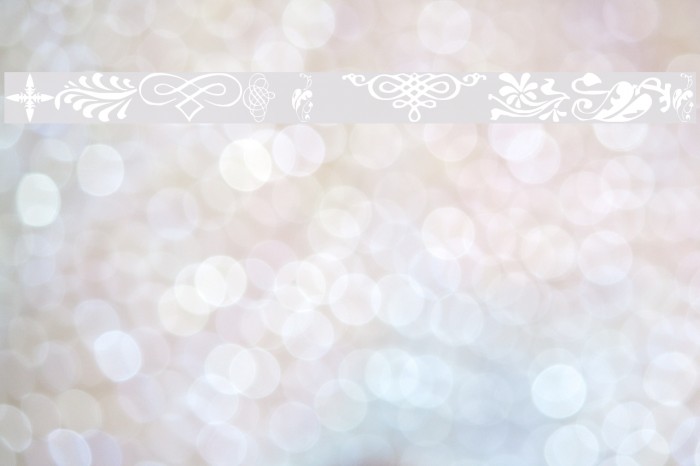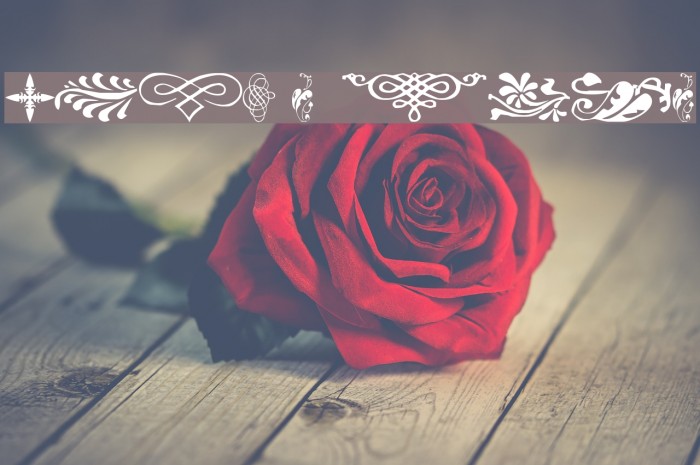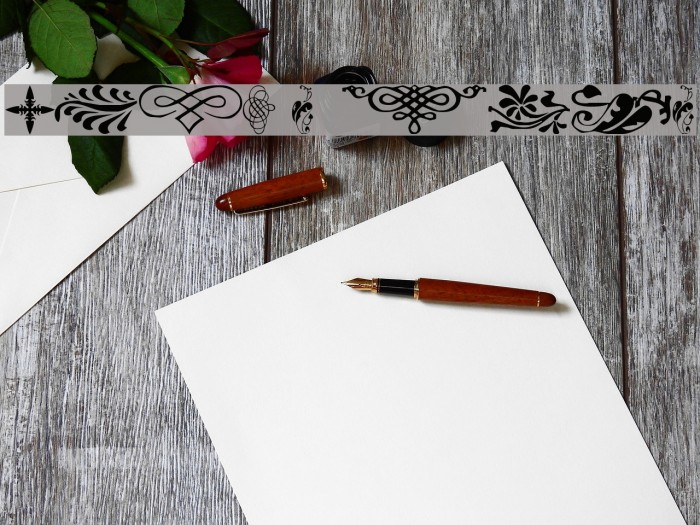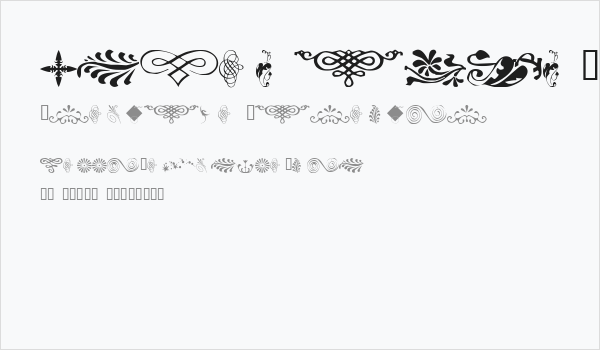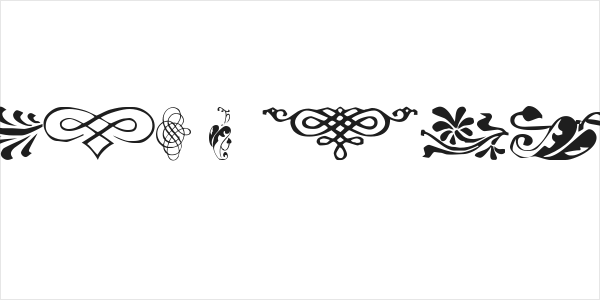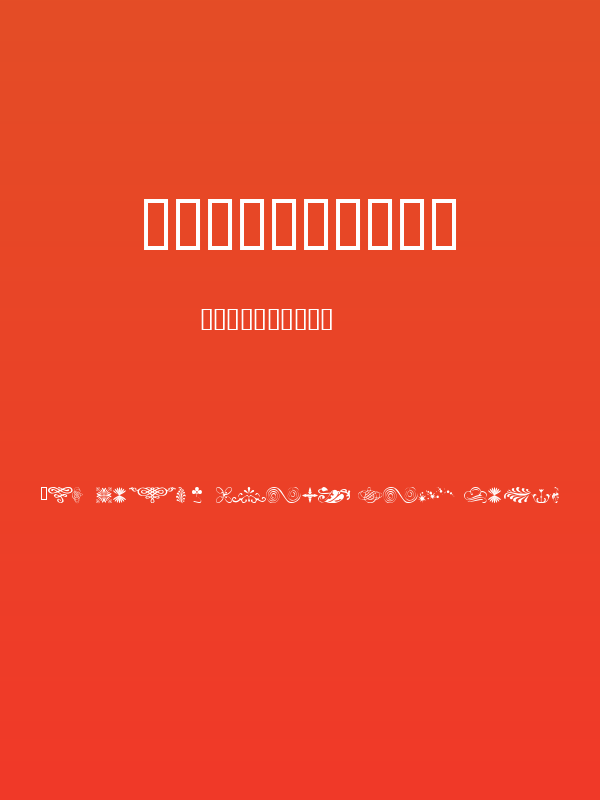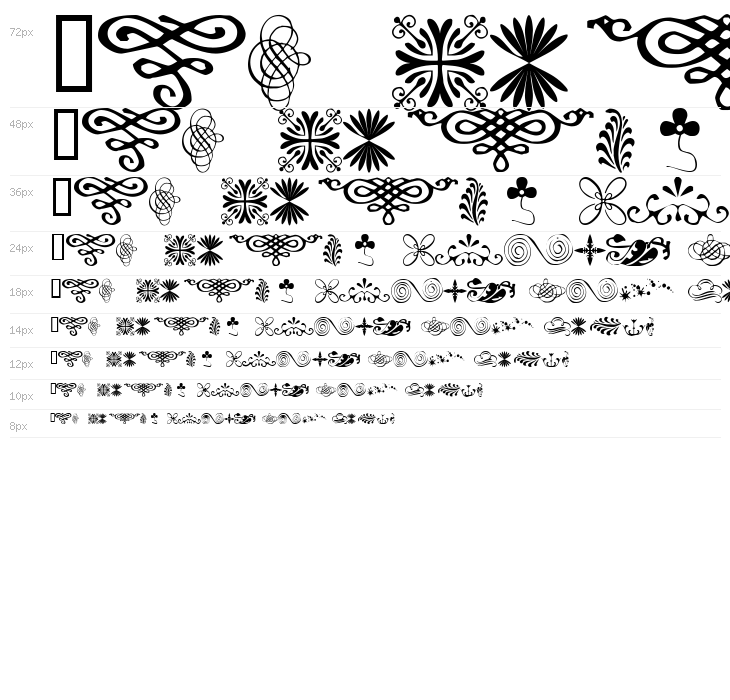
wmdesigns1 Font
wmdesigns1 Description
A collection of ornate, decorative flourishes and dingbats featuring swirls, floral motifs, and intricate embellishments, suitable for adding elegant accents to designs.
| Overall Style | Decorative, Vintage, Elegant |
| Use Case | Accents, Borders, Invitations, Certificates |
| Proposed Projects | Wedding invitations, certificates, decorative borders, vintage-style branding, scrapbooking. |